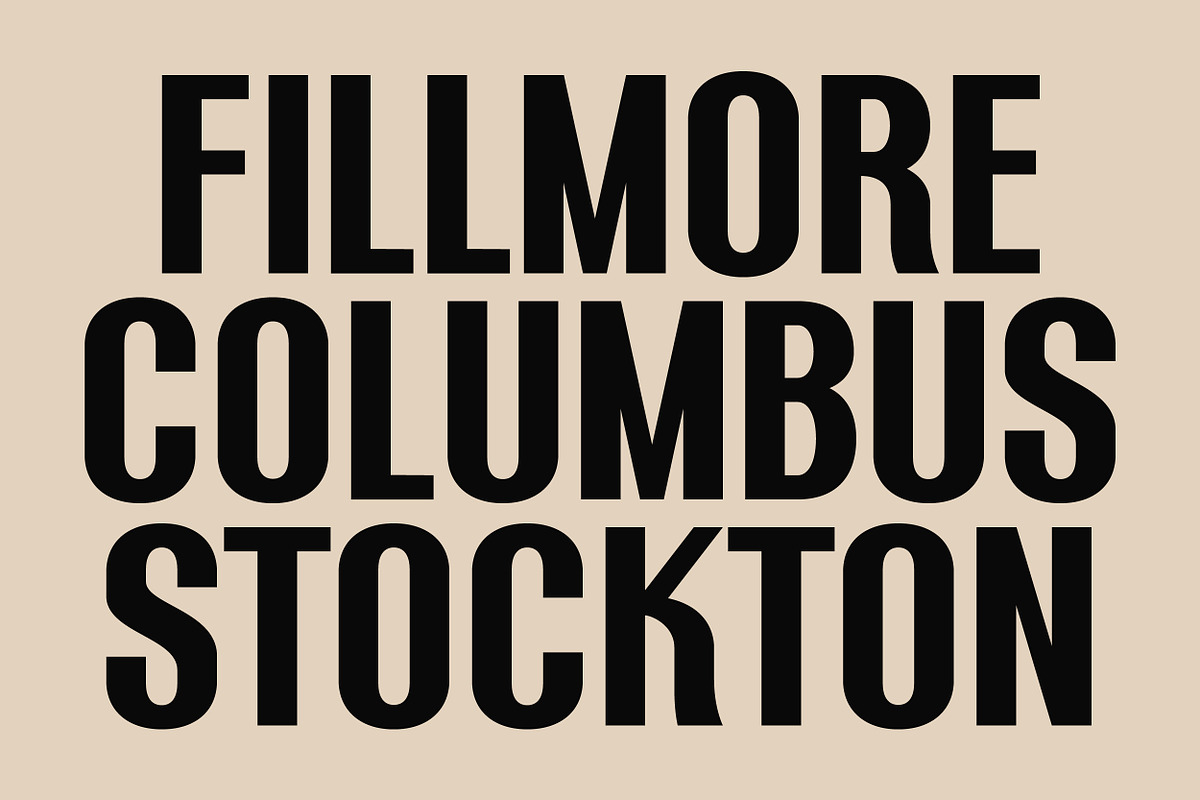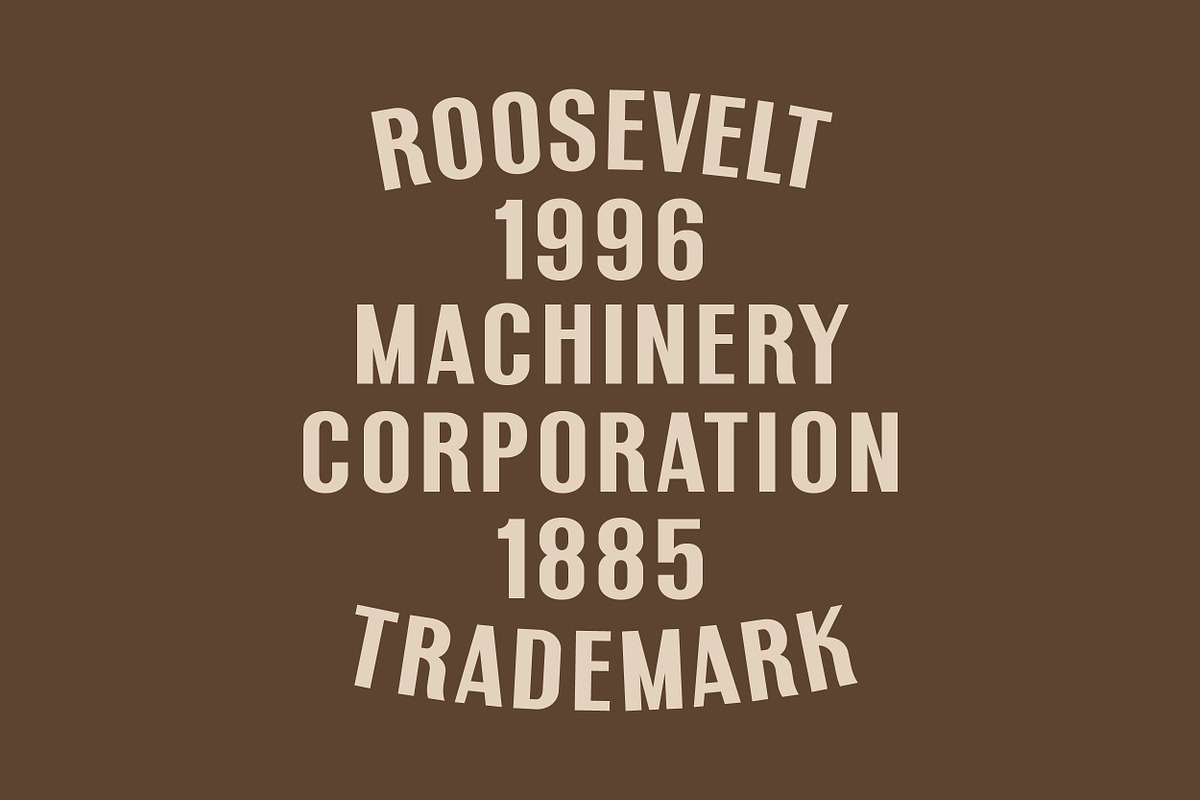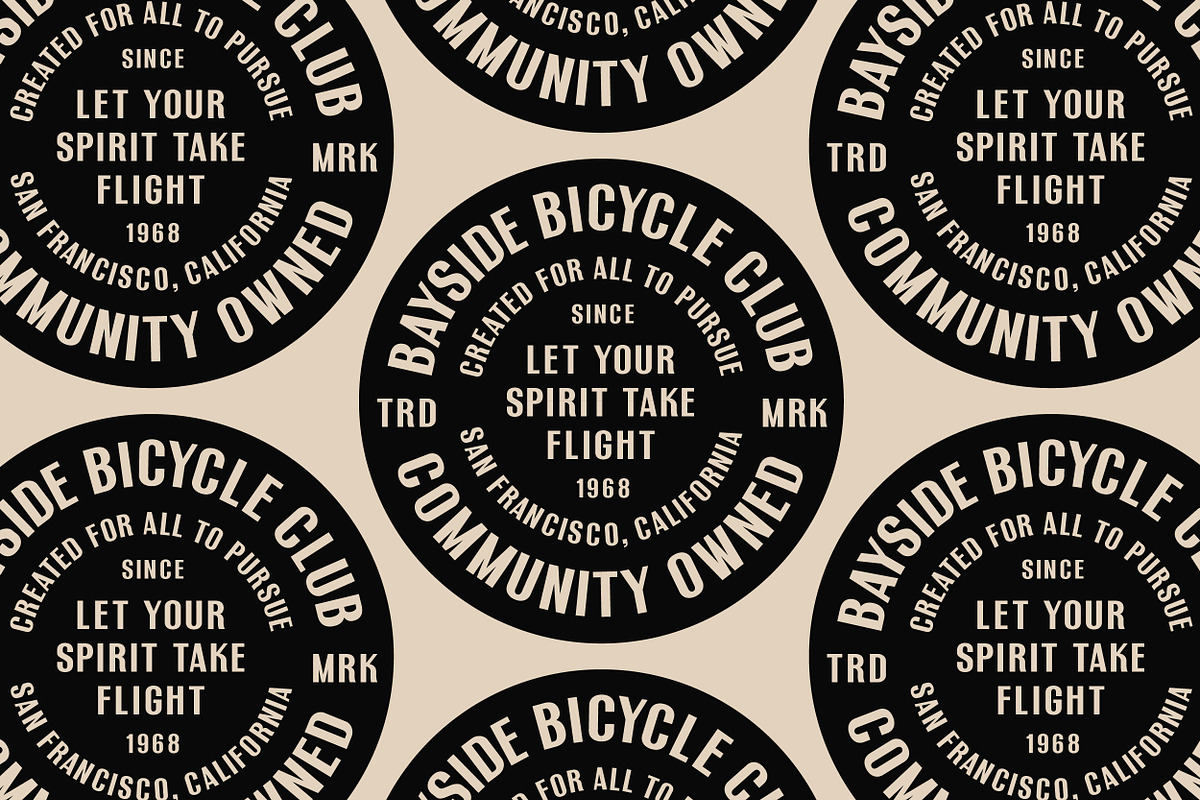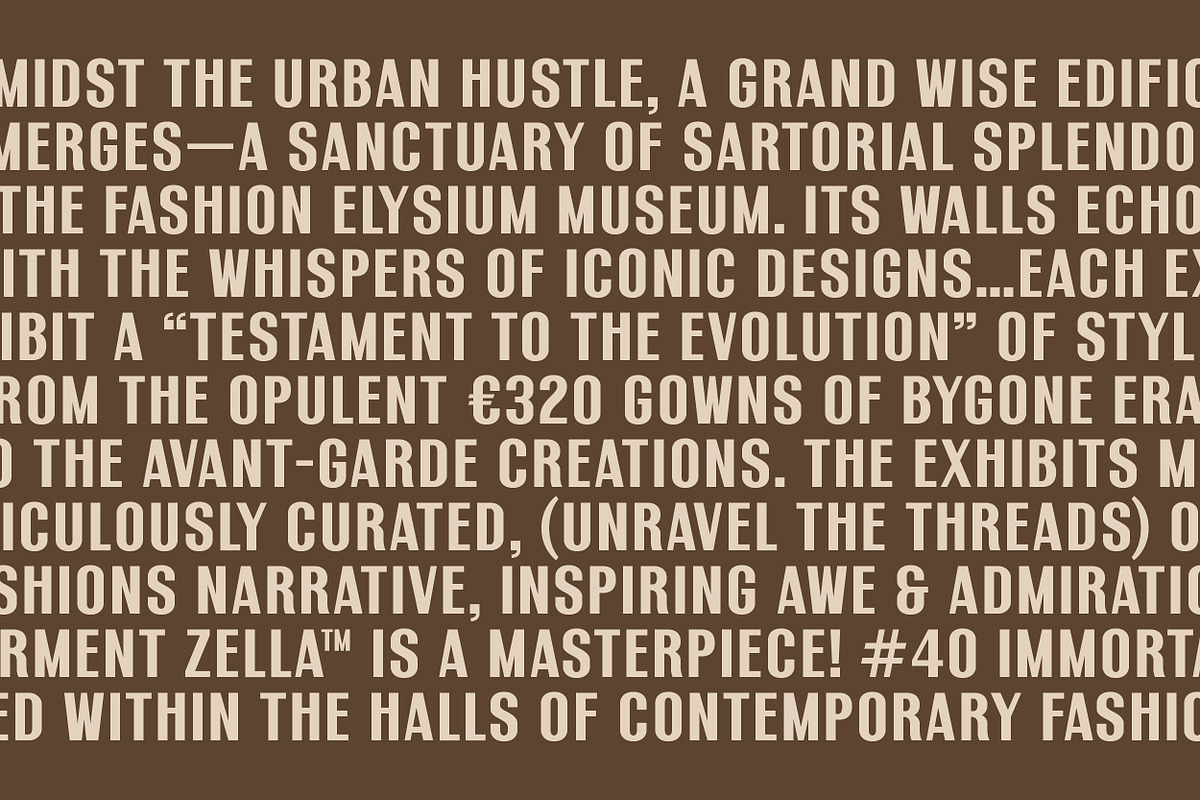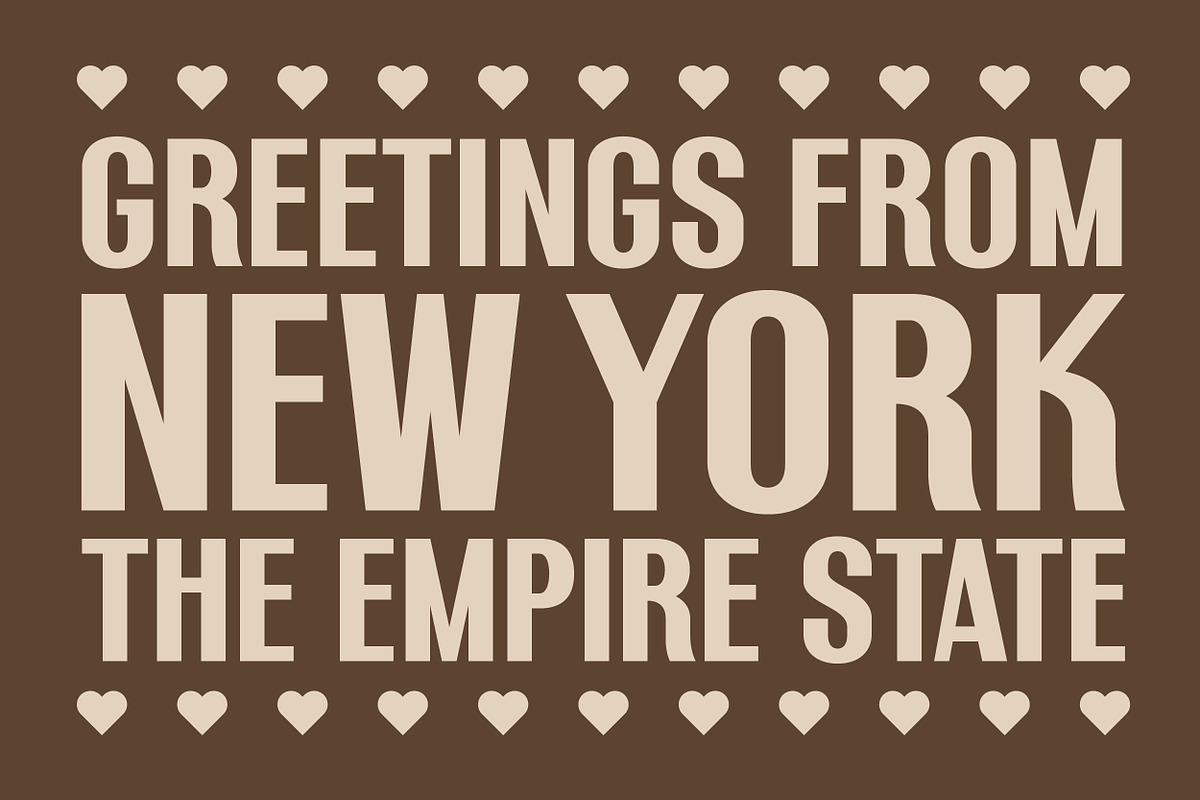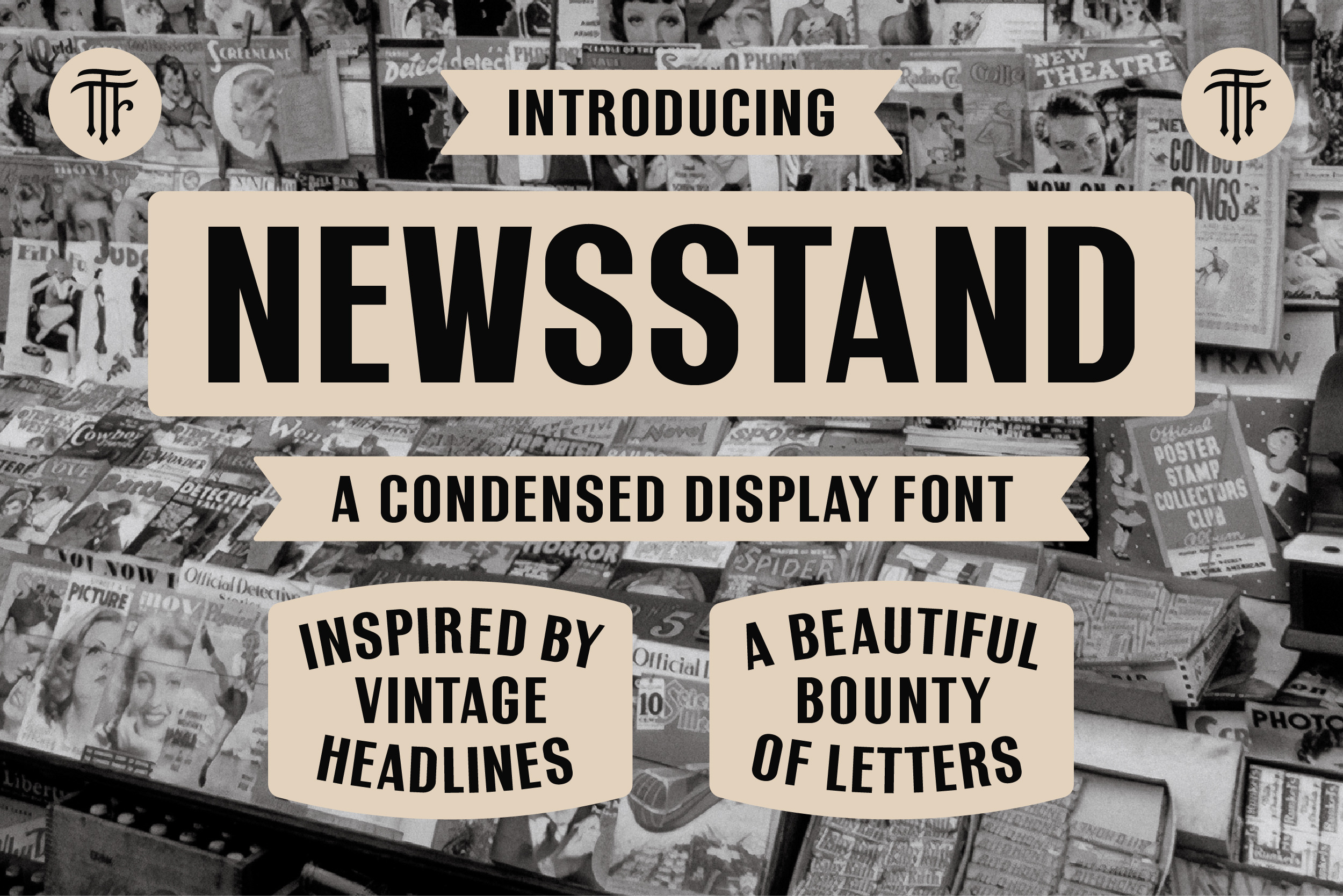
Newsstand - A Classic Vintage Font
Introducing Newsstand, a bold condensed sans serif display font. With heavy inspiration from vintage newspaper headlines, Newsstand denotes a loud voice ready to call for action. Perfect for banners, headers, logos, posters, and more. Speak boldly with Newsstand!